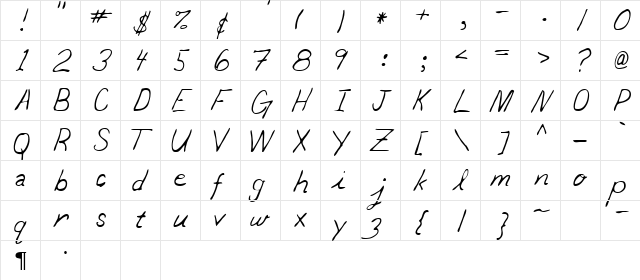
Francis Regular
Design Context for Francis Typeface
Francis takes a measured approach to typography — its balanced proportions and neutral character make it a reliable workhorse for both digital and print work.